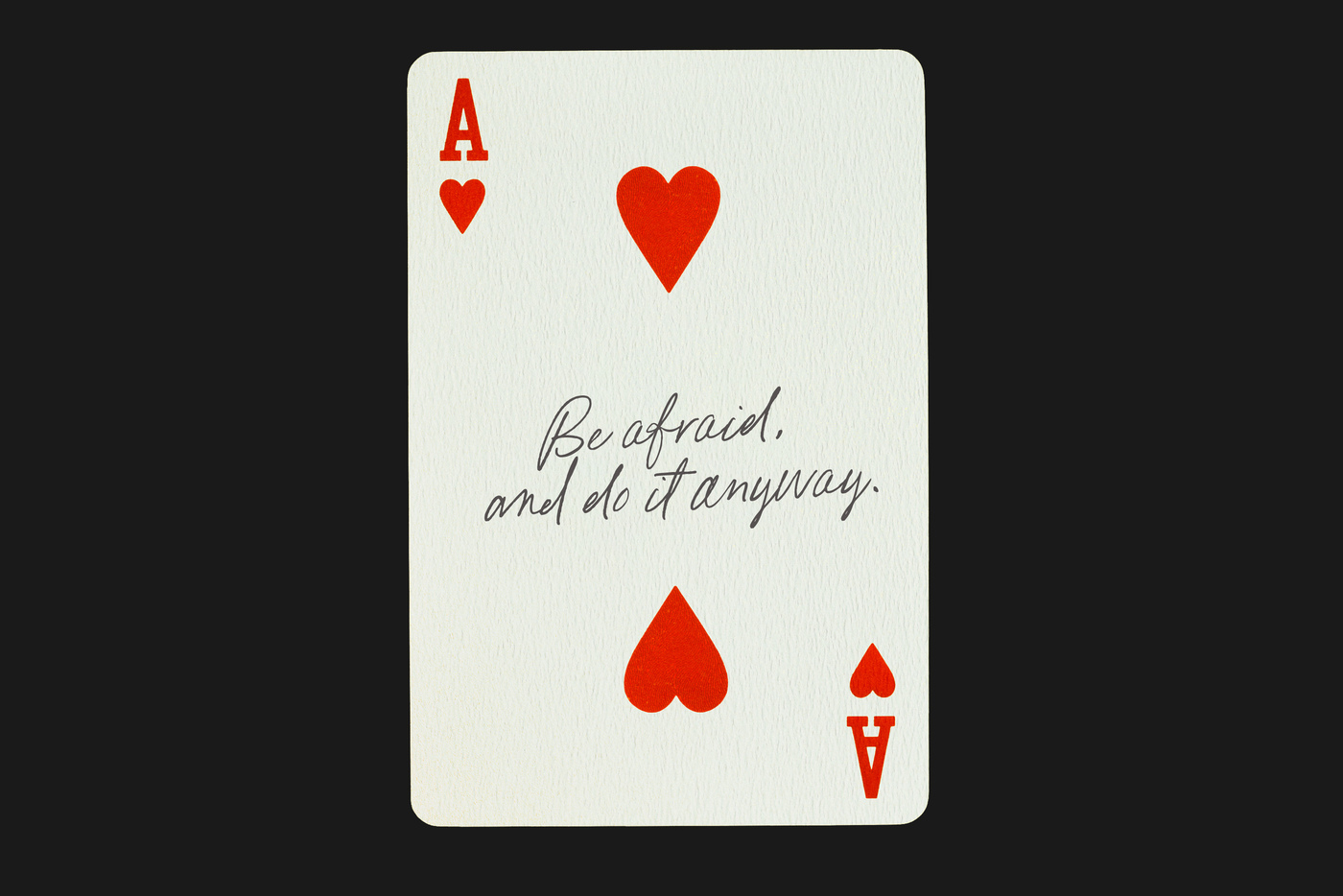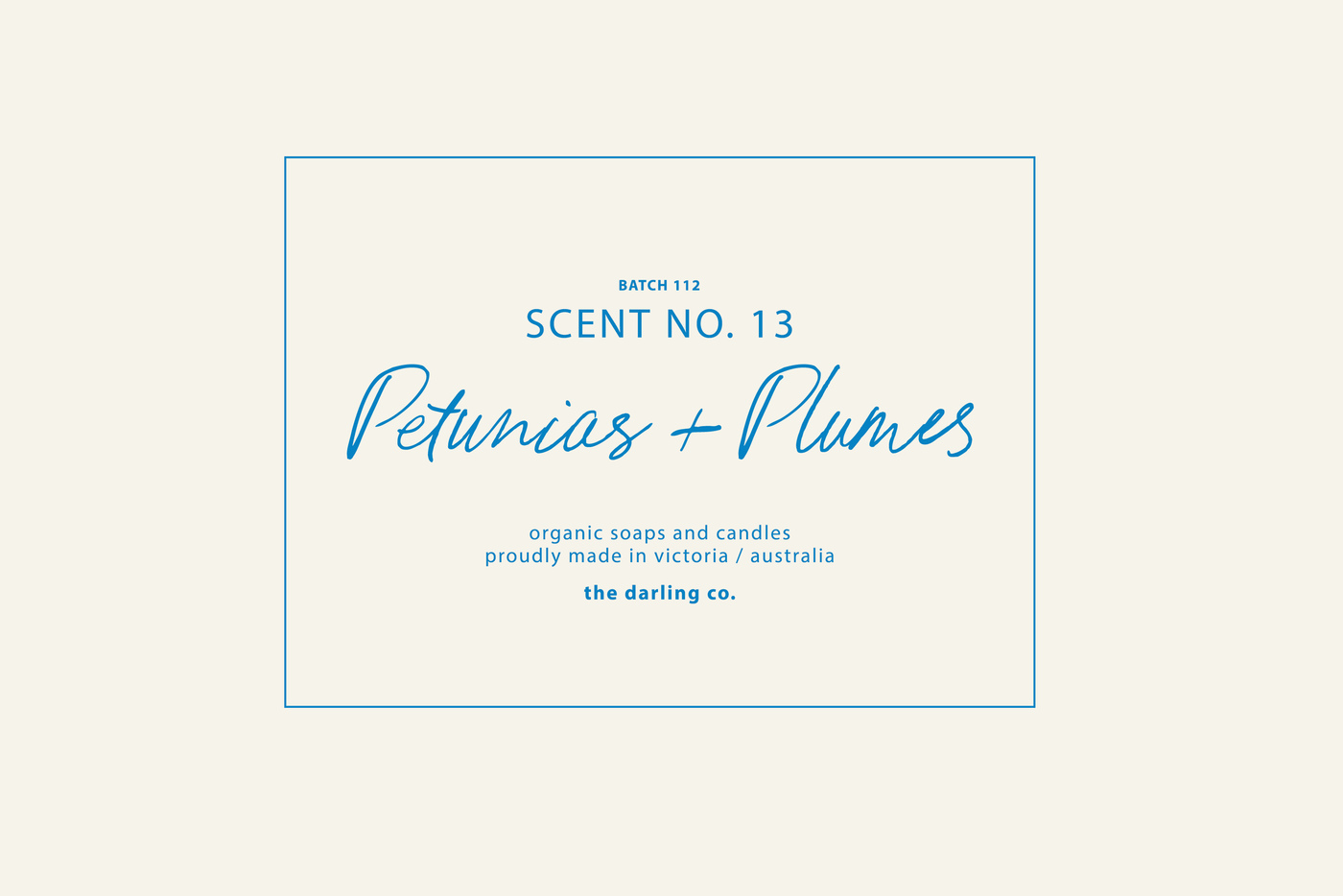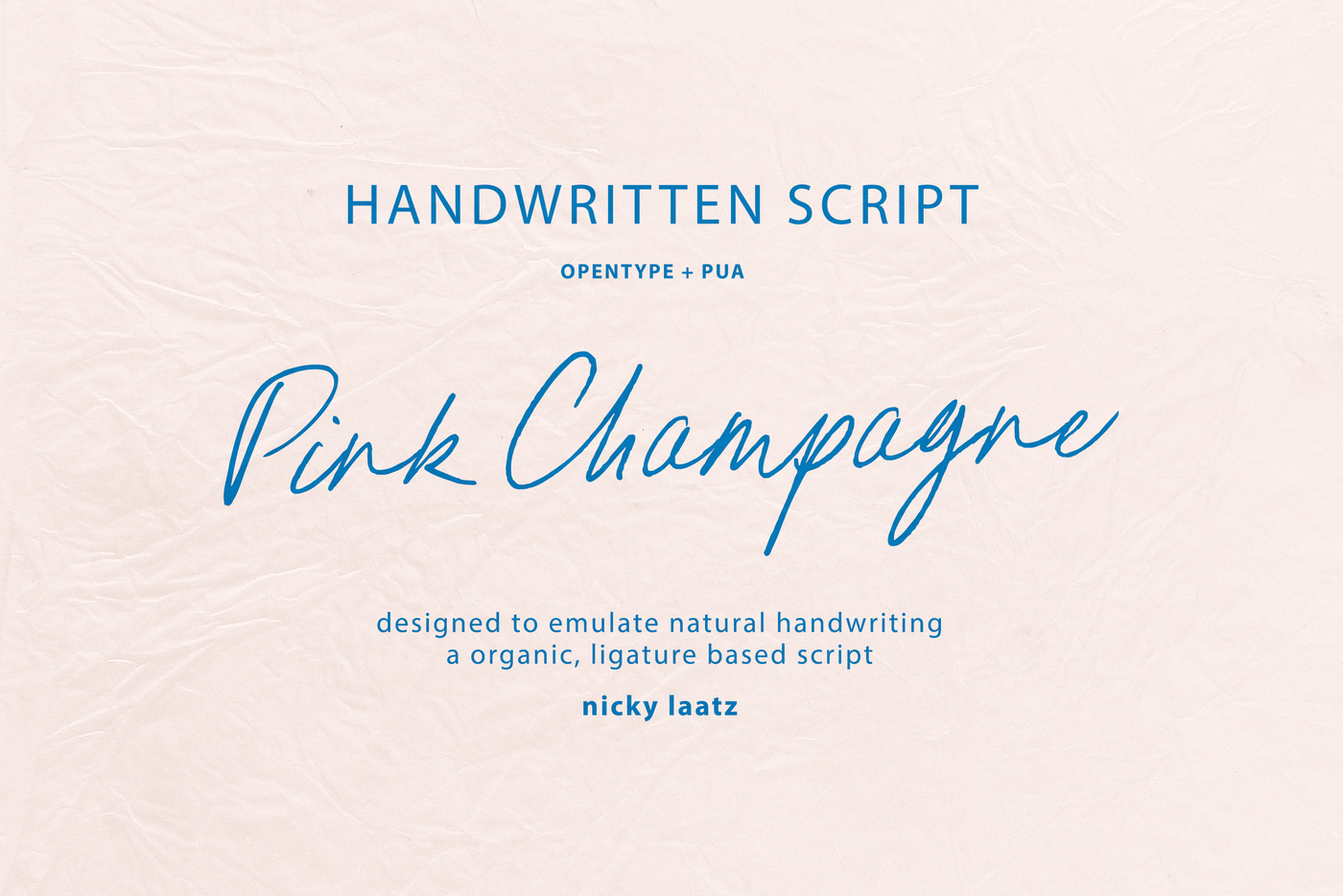
Pink Champagne Script Typeface
Say hello to Pink Champagne!
Ultra chic, ultra casual...she's ready to take on the job.
Pink Champagne is designed to emulate natural handwriting, and as such is perfect for adding that special handwritten touch to your designs.
She also has a large selection of opentype ligatures (see requirements) to make her appear even more natual and free flowing. Make sure you have your Ligatures turned on if you'd like to activate them, or turn pairs on and off as you'd like them in your type settings.
Pair her up with a strong Sans-serif or Serif, and you have a match made in heaven. On her own, she's perfect for notes, labels, greeting cards, wedding invites, quotes, organic themes and so much more.
For non-opentype and Canva users , Pink Champagne has been PUA encoded, so with a little extra elbow grease you can use it and all its extra letters without special software :)
Pink Champagne Script by Nicky Laatz